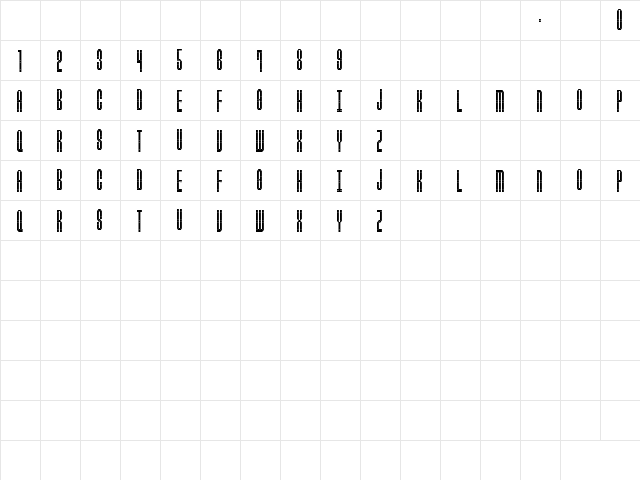
M13_SCAD DESTROYER Regular
Design Context for M13_SCAD DESTROYER Typeface
M13_SCAD DESTROYER is a composed and adaptable typeface that performs quietly and consistently across a wide range of design contexts.
Pro Tip: Use M13_SCAD DESTROYER in both headline and body roles to test its range before committing to a single application.